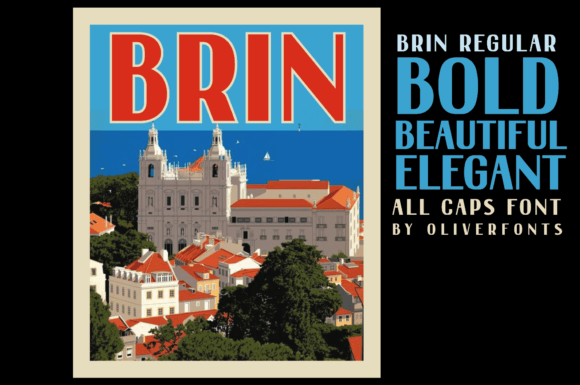
- ✨ Strong and Dynamic: Brin Font stands tall and proud, making it perfect for posters, stickers, headlines, or any design that needs a powerful punch.
- ✅ Easy to Read: Despite its bold nature, Brin Font remains surprisingly legible, even at smaller sizes.
- 💥 Versatile: This font is not just for headlines; it can add a bold touch to logos, business cards, or any other design element that needs a bit of attitude.
While Brin Font is an excellent choice for many projects, there are a few things to keep in mind:
- 🤔 All-Caps Only: As an all-caps font, Brin might not be the best fit for body text or designs that require a mix of uppercase and lowercase letters.
- ⚠️ Limited OpenType Features: While Brin Font does offer some basic OpenType features, it may not have the advanced features that some designers require for intricate designs.
The Story Behind Brin Font
While the origins of Brin Font might be shrouded in mystery, it’s clear that this font was designed with one goal in mind: to make a statement. Whether it’s used for a bold poster or a striking logo, Brin Font is sure to turn heads.
| Q: What type of projects is Brin Font best suited for? | A: Brin Font is perfect for projects that require a bold, dynamic look, such as posters, stickers, headlines, and logos. |
| Q: Can I use Brin Font for body text? | A: While Brin Font is legible, it’s primarily designed for headlines and display text. For body text, you may want to choose a more traditional font. |
| Q: Does Brin Font offer advanced OpenType features? | A: Brin Font offers basic OpenType features like ligatures and stylistic alternates, but it may not have the advanced features required for intricate designs. |